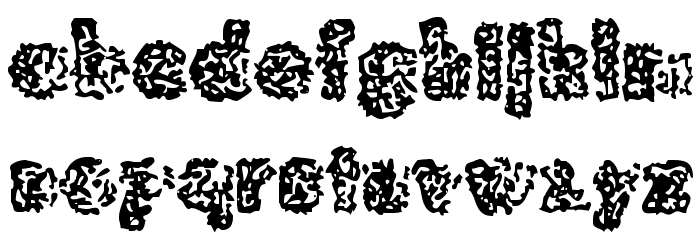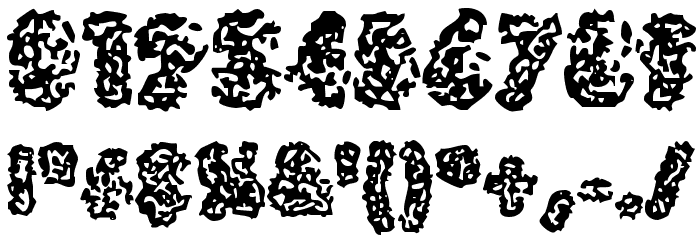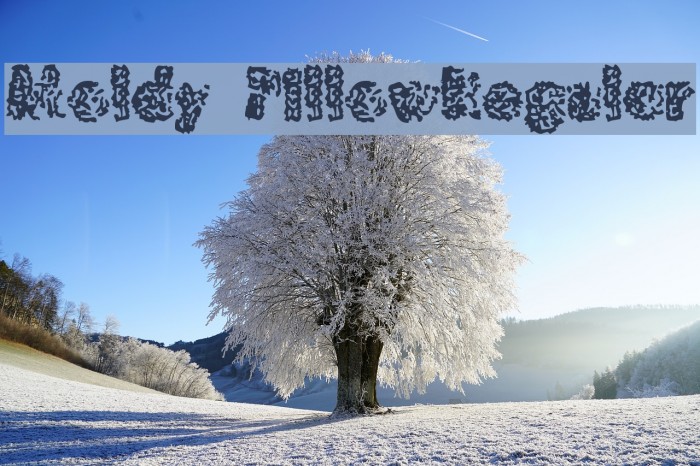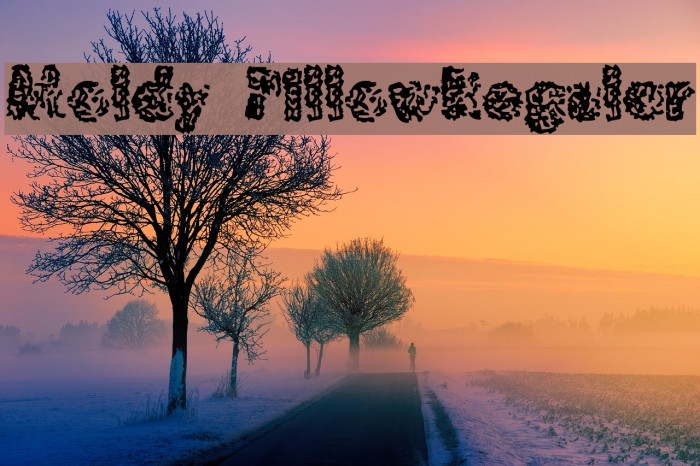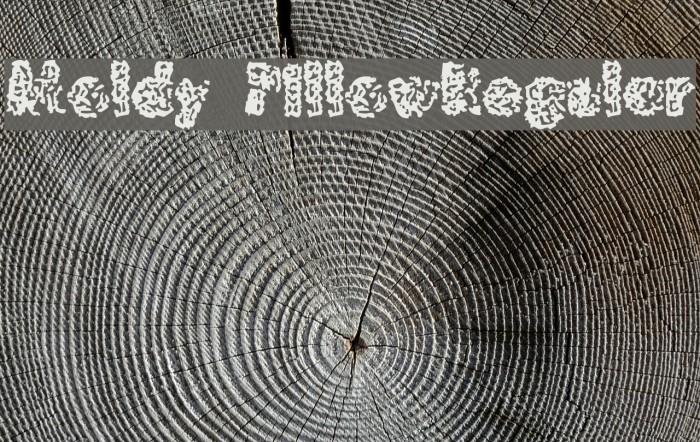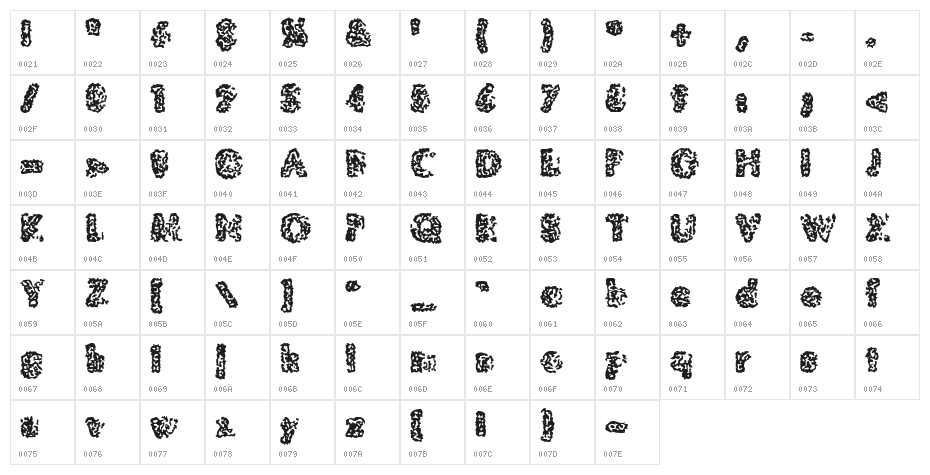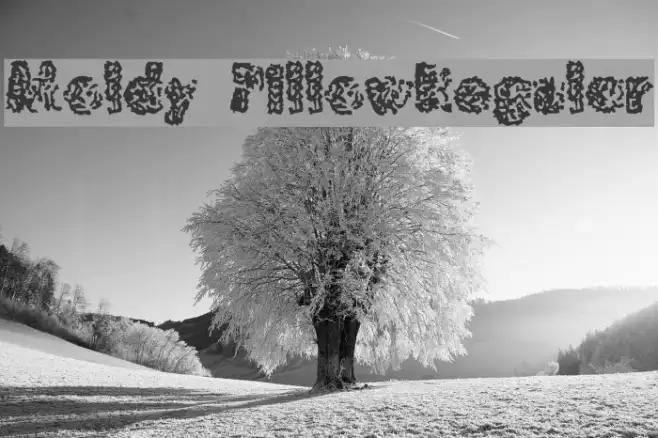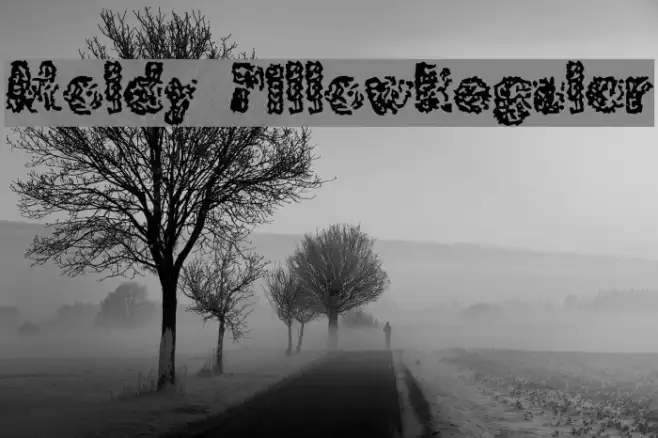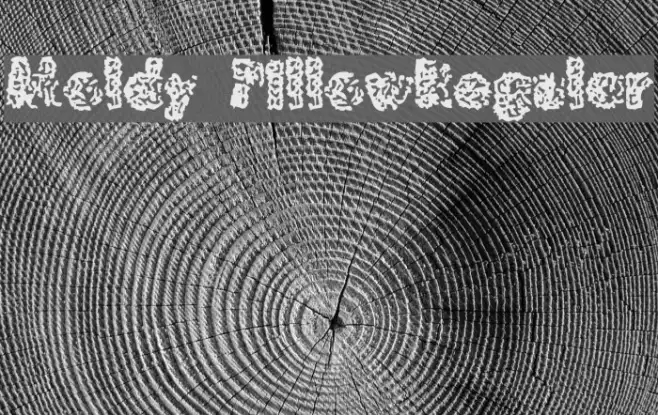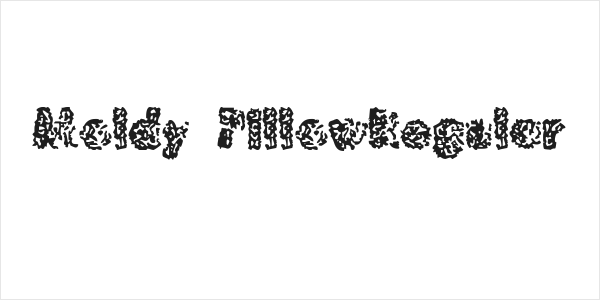
Moldy PillowRegular Font
This font features a highly decorative and textured style, reminiscent of organic or natural patterns. Each character appears as if it is composed of irregular, mold-like formations, giving it a unique and artistic appearance. The font maintains a consistent level of detail across both uppercase and lowercase letters, as well as numbers and special characters. Its bold and intricate design makes it stand out, while the irregular edges and filled-in sections create a sense of depth and complexity. This font is not suitable for body text due to its elaborate design but can be highly effective in creative and artistic projects.
A decorative, textured font with mold-like, organic patterns.
- Proposed Projects: Ideal for artistic projects, posters, album covers, or any design requiring a unique, organic aesthetic.